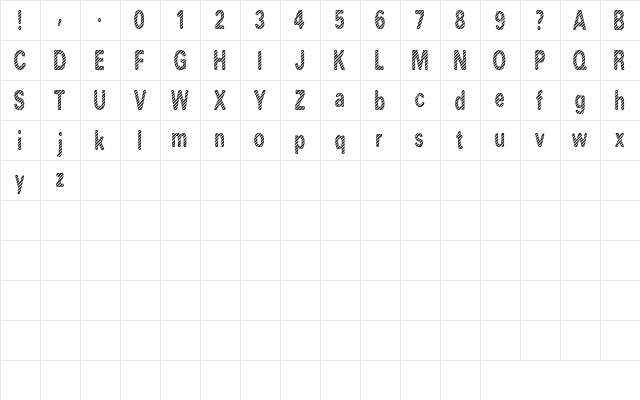
Curtain Regular
Design Context for Curtain Typeface
Curtain takes a measured approach to typography — its balanced proportions and neutral character make it a reliable workhorse for both digital and print work.